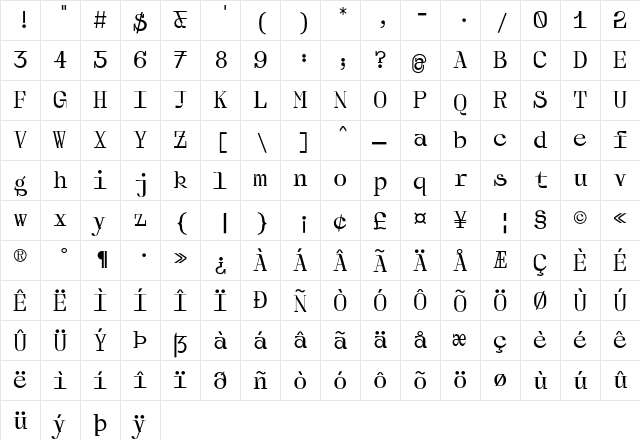
Pito Slab Regular
Design Context for Pito Slab Typeface
Pito Slab features prominent, blocky serifs that give it a confident, grounded presence — equally at home in editorial settings and bold branding work.
Works well in editorial design, news publishing, impactful branding, and poster typography.
Pro Tip: Try Pito Slab set tight in headlines for a classic editorial feel. Its slab serifs create strong horizontal rhythm that anchors a page layout.